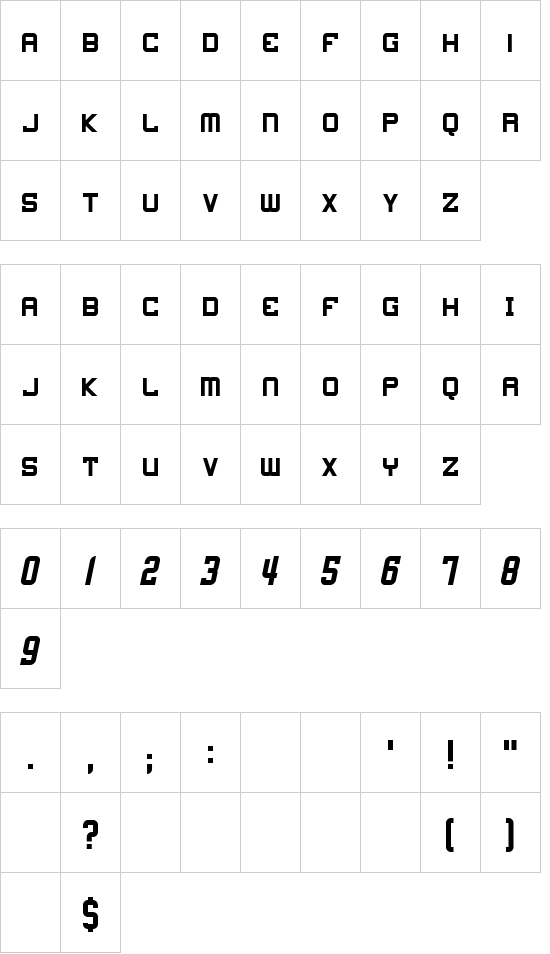
4th and Inches is a rounded sci-fi sans with chunky, sporty letterforms and a futuristic edge. The strokes are thick and the corners softened, blending an athletic boldness with a clean, forward-looking finish. Its mood is energetic and modern, equal parts stadium and spaceship.
Use it for sports and gaming logos, jersey graphics, energetic posters, and branding that wants an athletic punch. 4th and Inches is free to download as a TrueType file, and you can preview your own team name or title to see how the chunky letters read before placing them in a design.